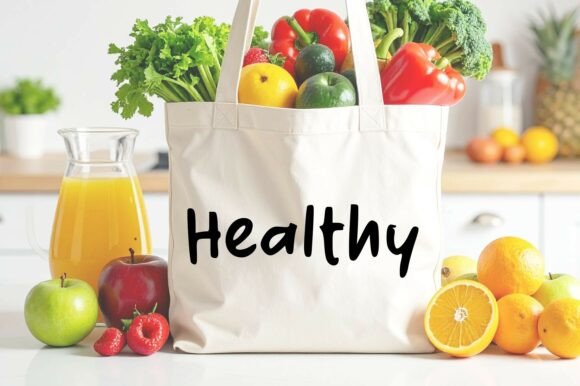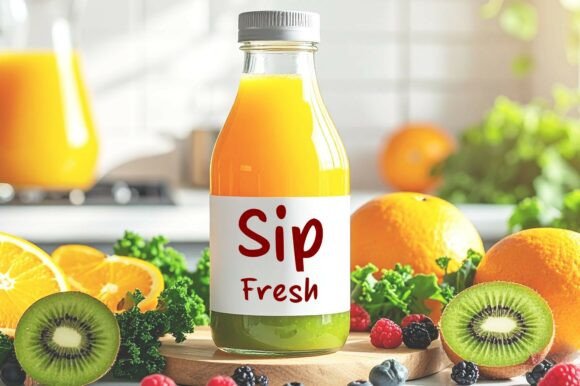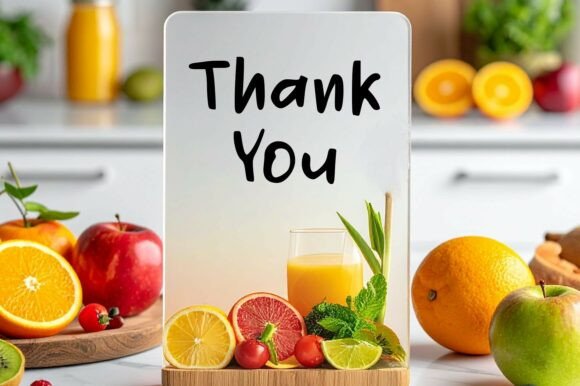
Introducing Beverage Juice Font: The Perfect Blend of Modern and Traditional Charm
Are you looking for a font that can add a touch of vitality and rustic allure to your designs? Look no further than the “Beverage Juice” font, a vivacious script font that expertly merges sharp, modern aesthetics with traditional artisan appeal. This delightful typeface is perfect for designers and crafters who want to create labels, menus, brand identities, and promotional materials that stand out from the crowd.
A Captivating Blend of Contemporary and Handcrafted
The “Beverage Juice” font boasts kinetic strokes and a slightly irregular baseline, creating a captivating blend of contemporary and handcrafted elements. This unique combination gives the font a distinct personality that is both modern and rustic. The sharp, clean lines and precise curves of the font ensure that it remains legible and easy to read, even at smaller sizes.
Perfect for Organic and Wellness Brands
The “Beverage Juice” font is particularly well-suited for creating labels for organic drinks, drafting menus for healthy cafes, and deriving brand identities for wellness products. The font’s natural, earthy feel and modern aesthetic make it an excellent choice for brands that want to convey a sense of freshness and vitality. Whether you’re creating packaging designs, promotional materials, or social media posts, this font is sure to help your brand stand out.
Versatile and Easy to Use
One of the best things about the “Beverage Juice” font is its versatility. It works seamlessly with a range of creative tools, making it easy to incorporate into your design workflow. Whether you’re a seasoned designer or a crafty DIY enthusiast, this font is easy to use and adaptable to a wide range of projects. From packaging designs and promotional materials to social media posts and personalized gifts, the “Beverage Juice” font is the perfect choice for any project that requires a unique and refreshing touch.
Add a Lively Tang to Your Designs
So why settle for a boring, generic font when you can add a lively tang to your designs with the “Beverage Juice” font? This delightful typeface is sure to infuse your graphic designs with a refreshed and unique twist, setting them apart from the competition. Whether you’re creating labels, menus, or promotional materials, this font is sure to help your brand stand out and leave a lasting impression.
Key Features of the Beverage Juice Font
- Vivacious script font: The “Beverage Juice” font is a lively and energetic script font that is perfect for adding a touch of vitality to your designs.
- Modern and traditional aesthetic: This font expertly merges sharp, modern aesthetics with traditional artisan appeal, creating a unique and captivating blend of contemporary and handcrafted elements.
- Kinetic strokes and irregular baseline: The font’s kinetic strokes and slightly irregular baseline give it a distinct personality that is both modern and rustic.
- Legible and easy to read: Despite its unique and artistic feel, the “Beverage Juice” font remains legible and easy to read, even at smaller sizes.
- Versatile and adaptable: This font works seamlessly with a range of creative tools and is adaptable to a wide range of projects, from packaging designs and promotional materials to social media posts and personalized gifts.
If you’re looking for a font that can add a touch of vitality and rustic allure to your designs, look no further than the “Beverage Juice” font. With its unique blend of modern and traditional aesthetic, kinetic strokes, and slightly irregular baseline, this font is sure to elevate your designs and set them apart from the competition. So why wait? Download the “Beverage Juice” font today and get ready to infuse your graphic designs with a refreshed and unique twist.